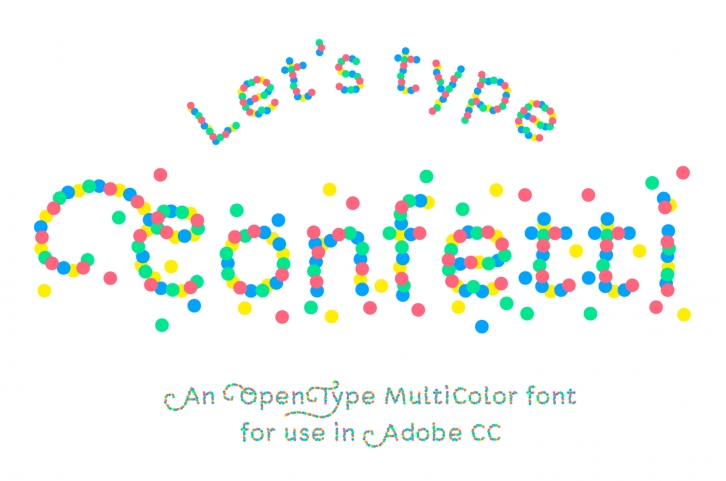
Font features:
- Confetti font (clean version)
- Bonus font: Confetti Wild (more decorative version with extra confetti)
- Uppercase & lowercase characters
- Extra uppercase with swashes
- Numbers, punctuation, accents
- End tails & bonus ornaments